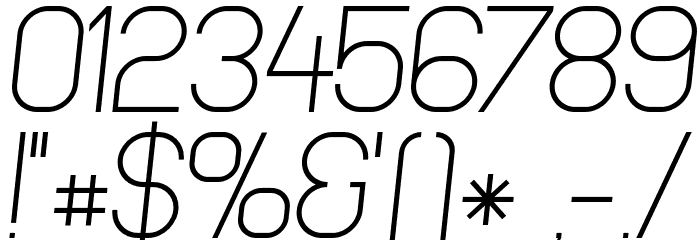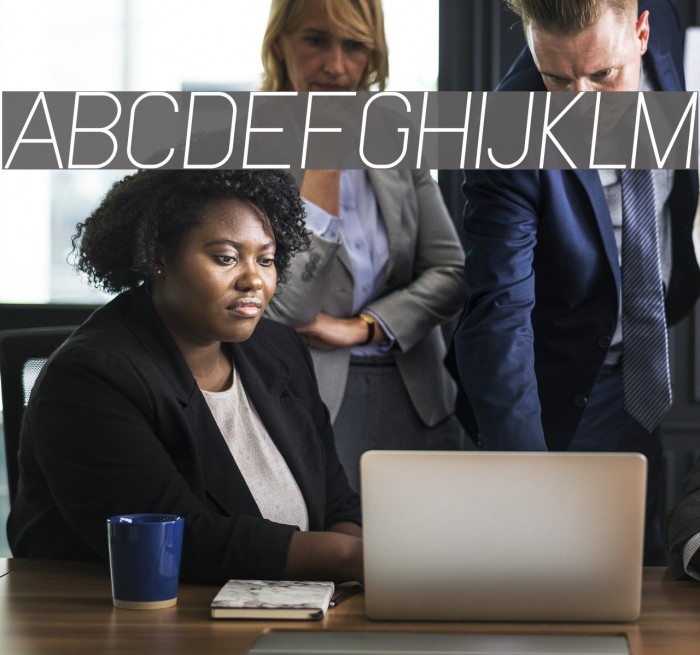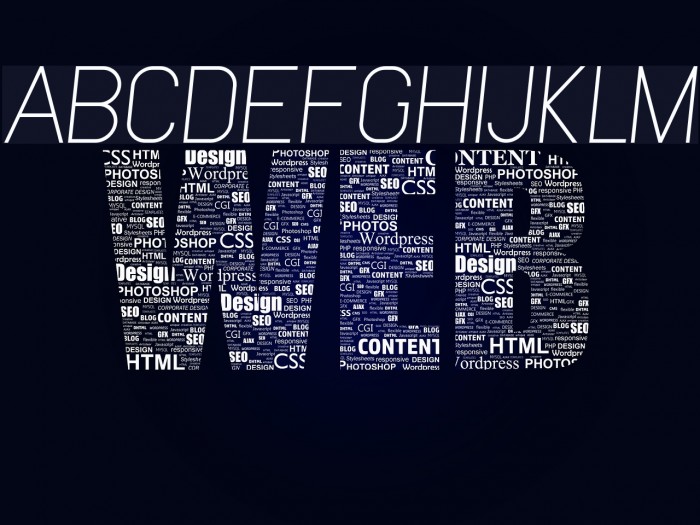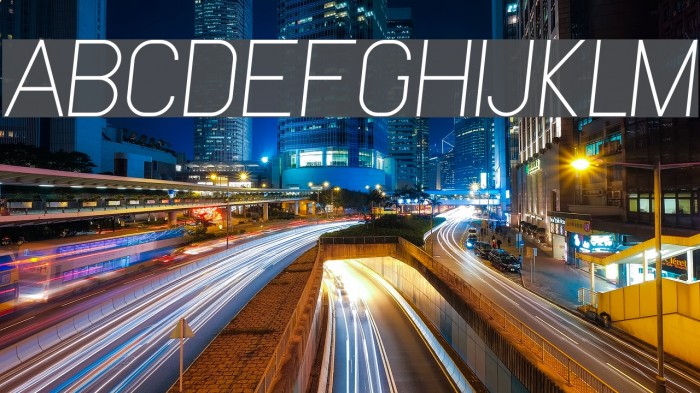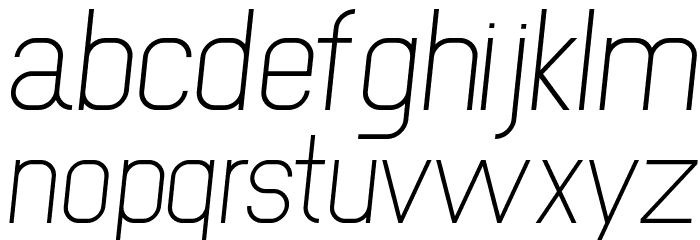
NewMedia Italic Font
NewMedia Italic Description
This font features a sleek and modern design with a distinct italic slant, giving it a dynamic and forward-moving appearance. The characters are uniformly thin, with a consistent stroke width that adds to its contemporary feel. The uppercase and lowercase letters maintain a geometric structure, while the numerals and special characters are designed with clarity and precision in mind. The overall look is clean and minimalistic, making it suitable for a variety of digital and print applications.
| Use Case | Headlines, Body text, Logos |
| Proposed Projects | Ideal for tech branding, modern advertising, digital interfaces, and editorial design. |